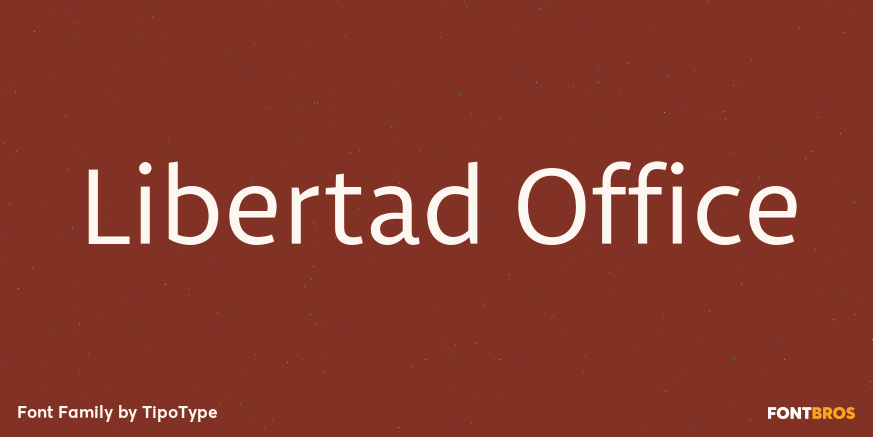
Libertad Office
About Libertad Office
Libertad is a sans-serif typeface that mixes humanist and grotesk models ? It\’s most interesting feature is the combination of balanced regulars with dinamic italics, wich makes it a very versatile font for diferent uses. This special package is a special…